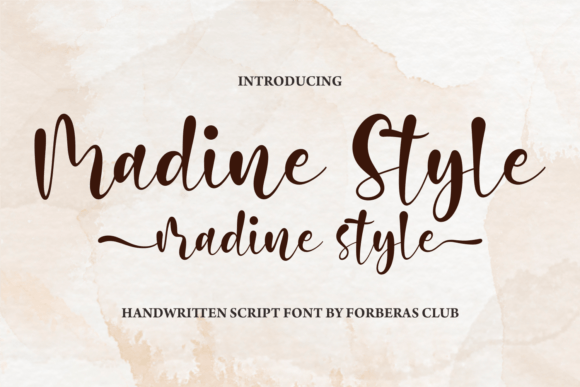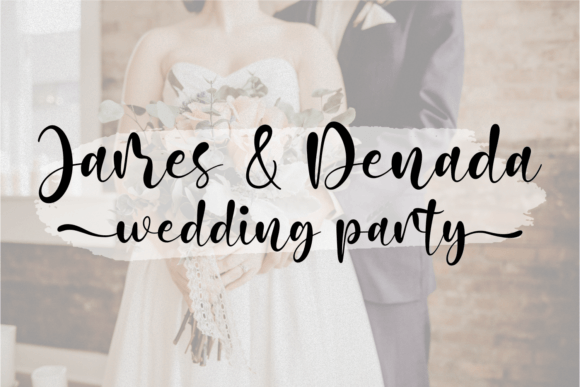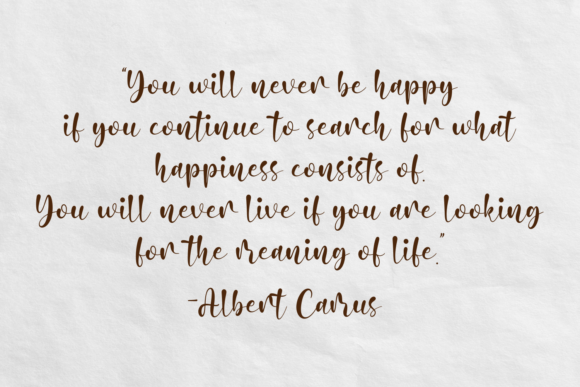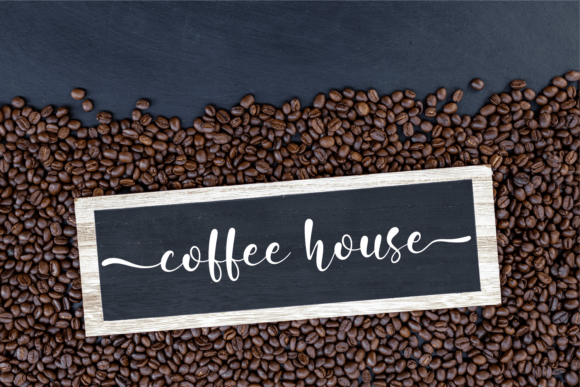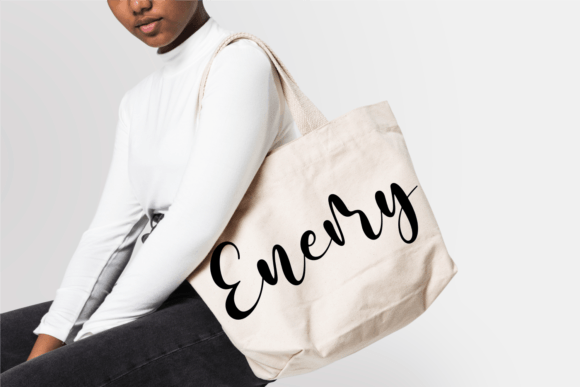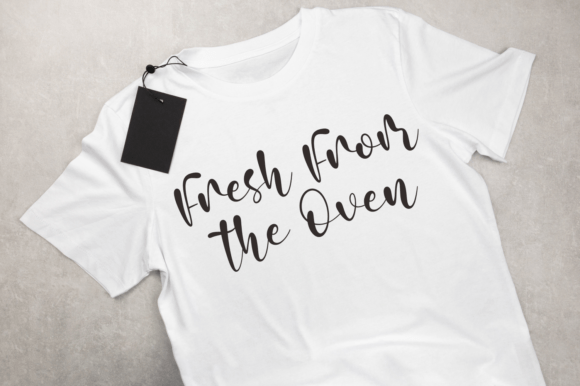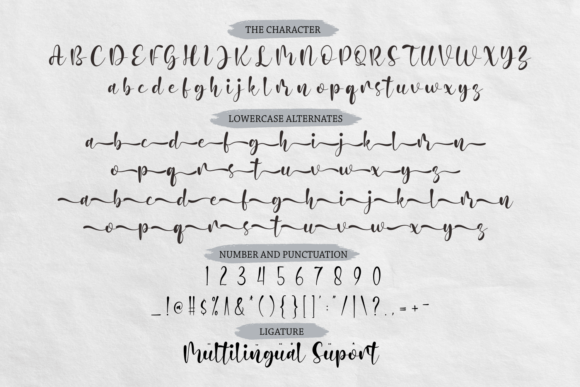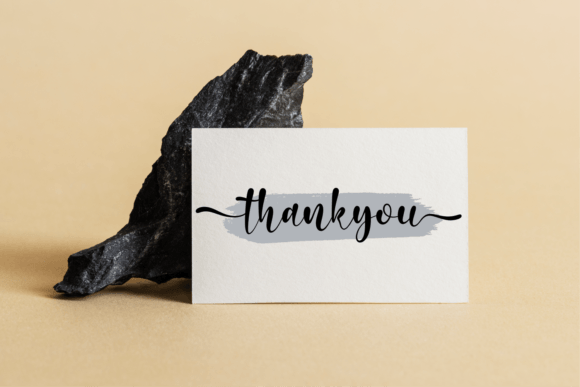
Madine Style Font
Madine Style is a fancy and elegant handcrafted font designed to add a touch of sophistication to your projects. This lovely and cute font brings a unique charm wherever you use it, making your text dance with a sense of refinement and elegance. Whether applied to headings, logos, ads, printed quotes, packaging, or your website and social media branding, Madine Style elevates the visual appeal of your content.
The fancy and elegant design of Madine Style makes it a versatile choice for a range of applications. It is particularly well-suited for projects that demand a stylish and refined aesthetic.
In headings and logos, Madine Style brings a sophisticated flair. Its handcrafted elegance ensures that your brand or project is represented with a unique and memorable identity, making it stand out in the minds of your audience.
For ads and printed quotes, Madine Style adds a touch of class. The font’s lovely and cute characteristics contribute to a visually appealing layout, enhancing the overall impact of your messages.
In packaging design, Madine Style becomes a valuable asset. Its fancy and elegant style enhances the perceived value of the product, making it more appealing to consumers.
For website and social media branding, Madine Style creates a cohesive and stylish look. Whether used in banners, headers, or social media posts, the font’s unique charm contributes to a visually appealing and memorable online presence.
The versatility of Madine Style extends to various creative projects where a fancy and elegant handcrafted font is desired. Its ability to add a touch of sophistication makes it suitable for a variety of contexts, ensuring that your text exudes a sense of refinement and charm.
In summary, Madine Style is not just a font; it’s a fancy and elegant design tool that enhances the beauty of your text across a range of projects. Whether used for headings, logos, ads, printed quotes, packaging, or branding efforts, this font brings a lovely and cute aesthetic that elevates the overall visual appeal of your content.